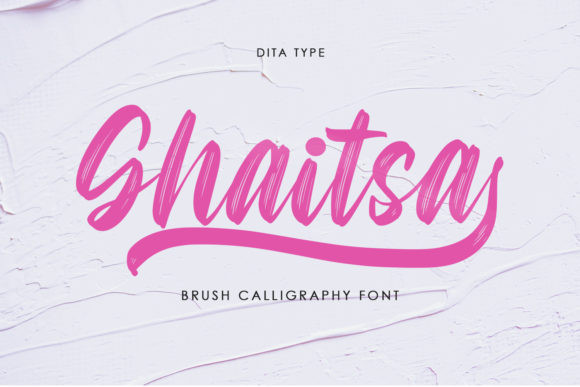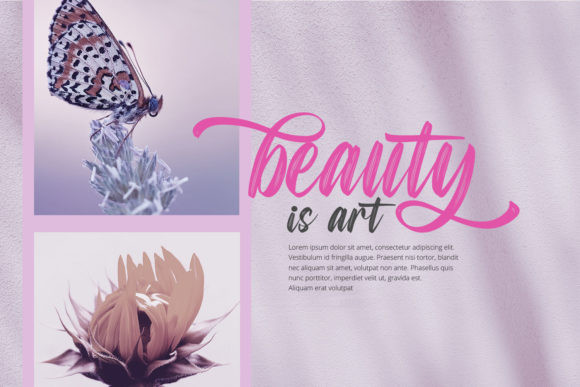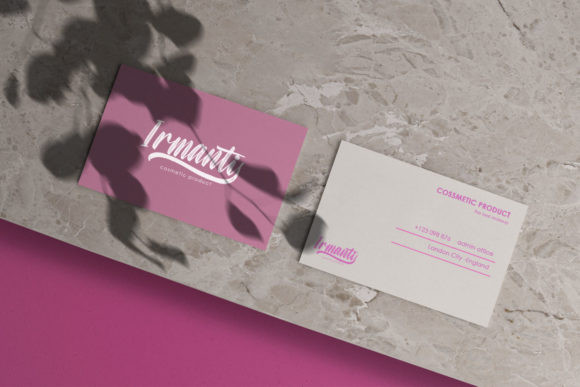
Ghaitsa Font
Ghaitsa is a beautiful handwritten font, designed with the help of a brush pen. Fall in love with its incredibly versatile style and use it to create gorgeous wedding invitations, beautiful stationary art, eye-catching social media posts, and much more!